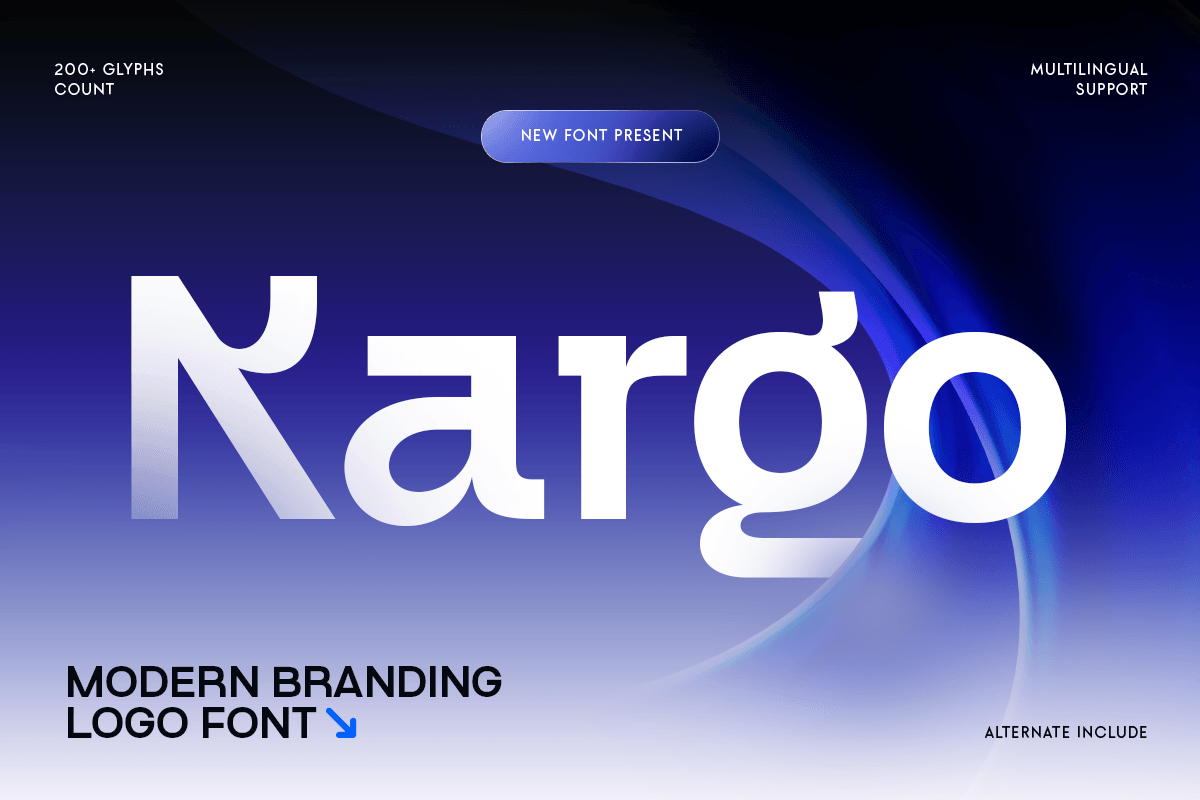
Kargo
-Modern Branding Logo FontKargo - Modern Branding Logo Font
Kargo is a modern branding logo font designed to deliver clarity, confidence, and strong visual identity. Featuring clean geometry, balanced proportions, and a refined contemporary style, this typeface is ideal for businesses, startups, agencies, and modern brands seeking a professional appearance.
Its sleek structure makes Kargo highly versatile across logos, packaging, websites, presentations, and editorial projects. The carefully crafted letterforms ensure excellent readability while maintaining a sophisticated and memorable visual presence.
Whether you're building a corporate identity, launching a new brand, or designing modern marketing materials, Kargo provides the flexibility and professionalism needed for impactful communication across digital and print platforms.
Kargo – Modern Branding Logo Font Features
Clean and modern design for professional branding
Perfect for logos, packaging, websites, and business materials
Geometric structure with balanced visual proportions
Ideal for corporate, startup, creative, and lifestyle brands
OpenType features for advanced typographic flexibility
Build a strong visual identity with Kargo – the ultimate modern logo font for clean, professional, and contemporary branding. ✨💼